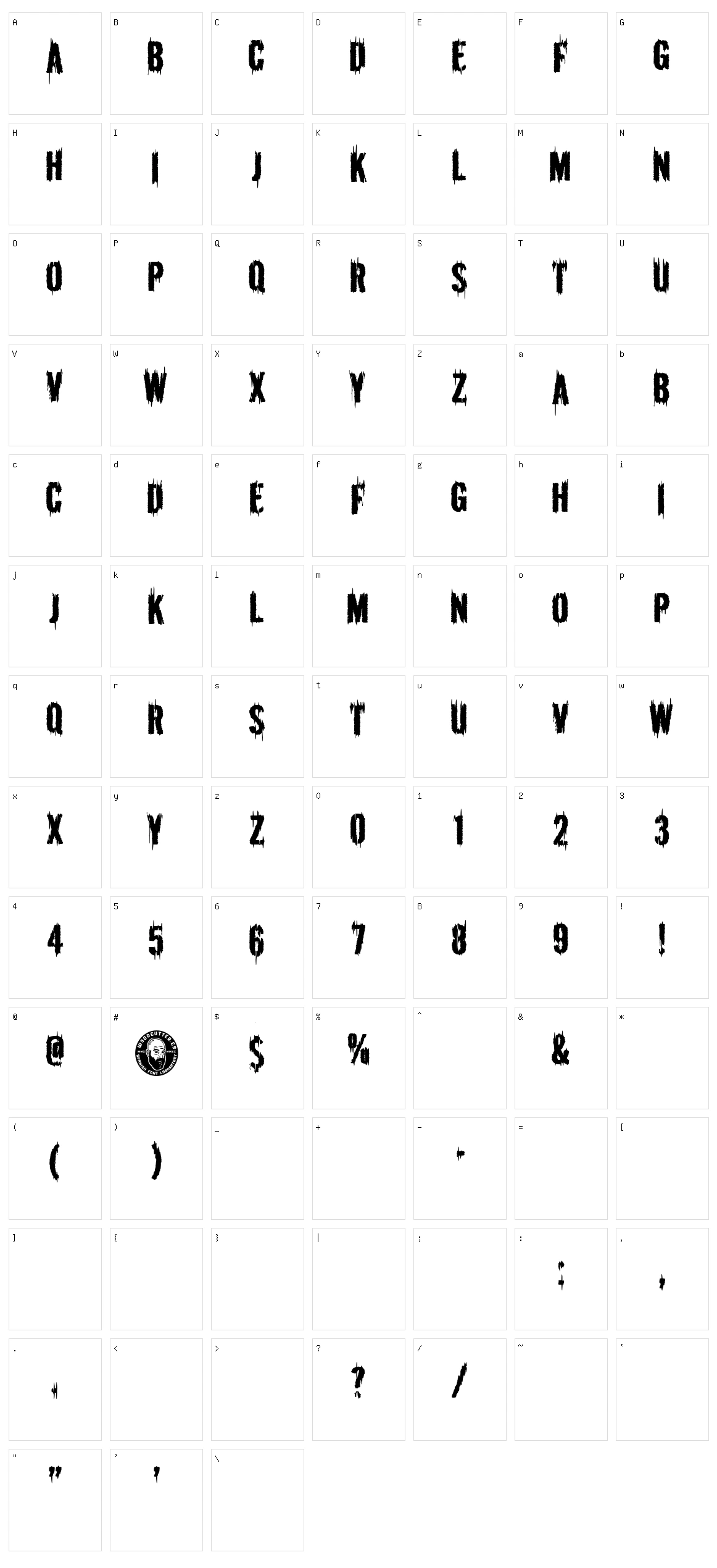
The free font The Black Bible is carefully designed by Woodcutter, showcasing a thoughtful balance of creativity and usability and falls under the Horror font style. When you download the ZIP file, it contains only 105.74 KB of font files, making it lightweight and quick to download. Please review the license details below to understand permitted usage and distribution rights. If license information is not available, we recommend using this font for personal projects only or contacting the author directly for commercial usage permissions.